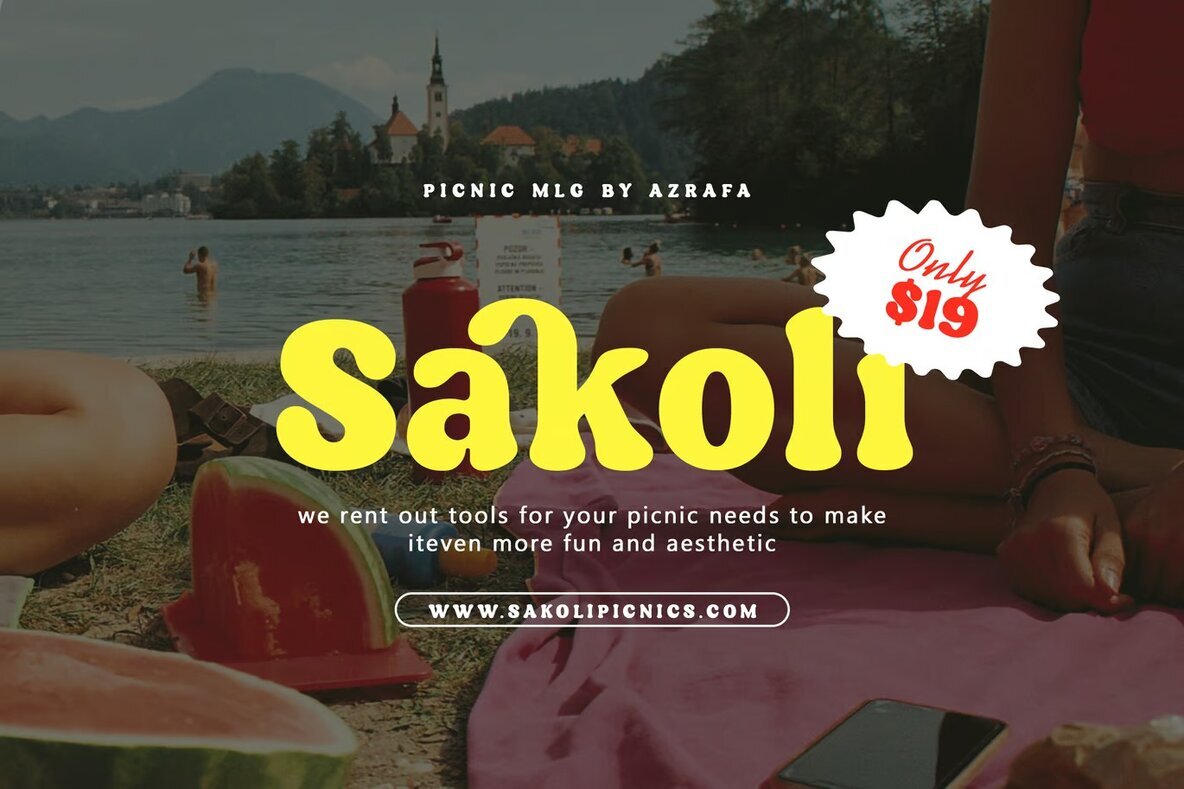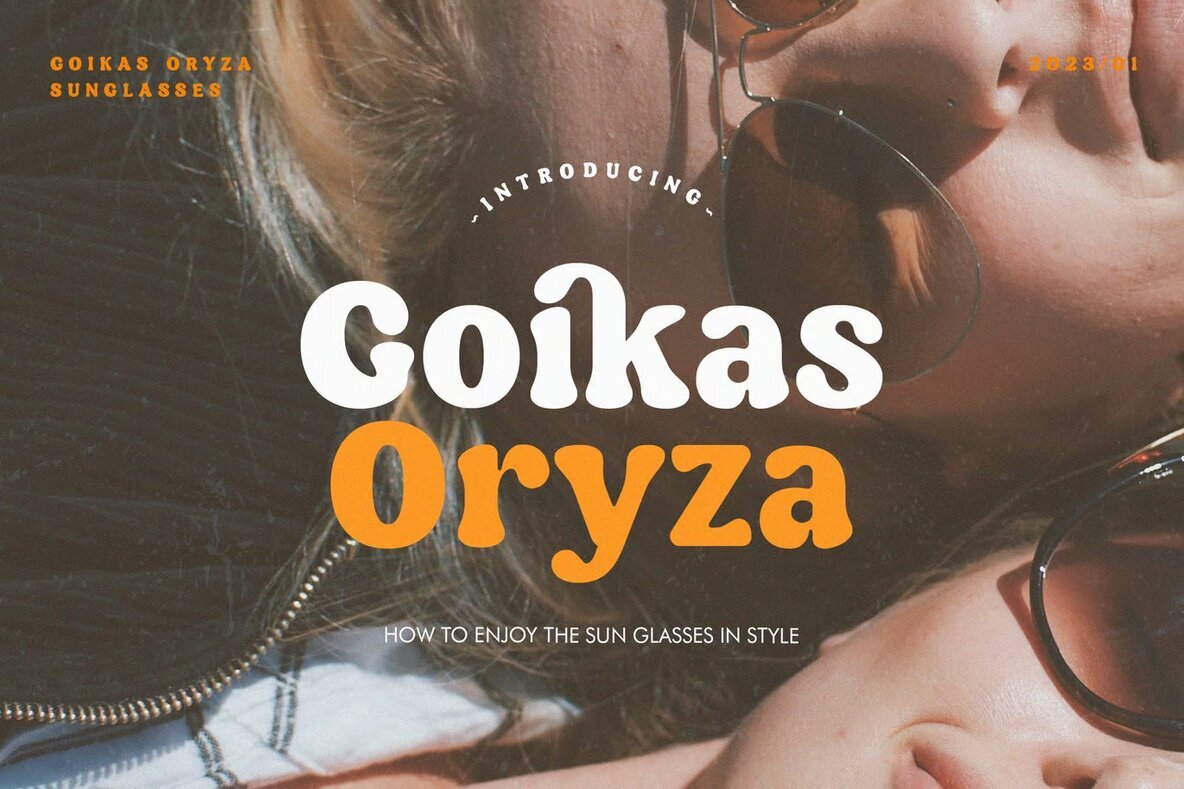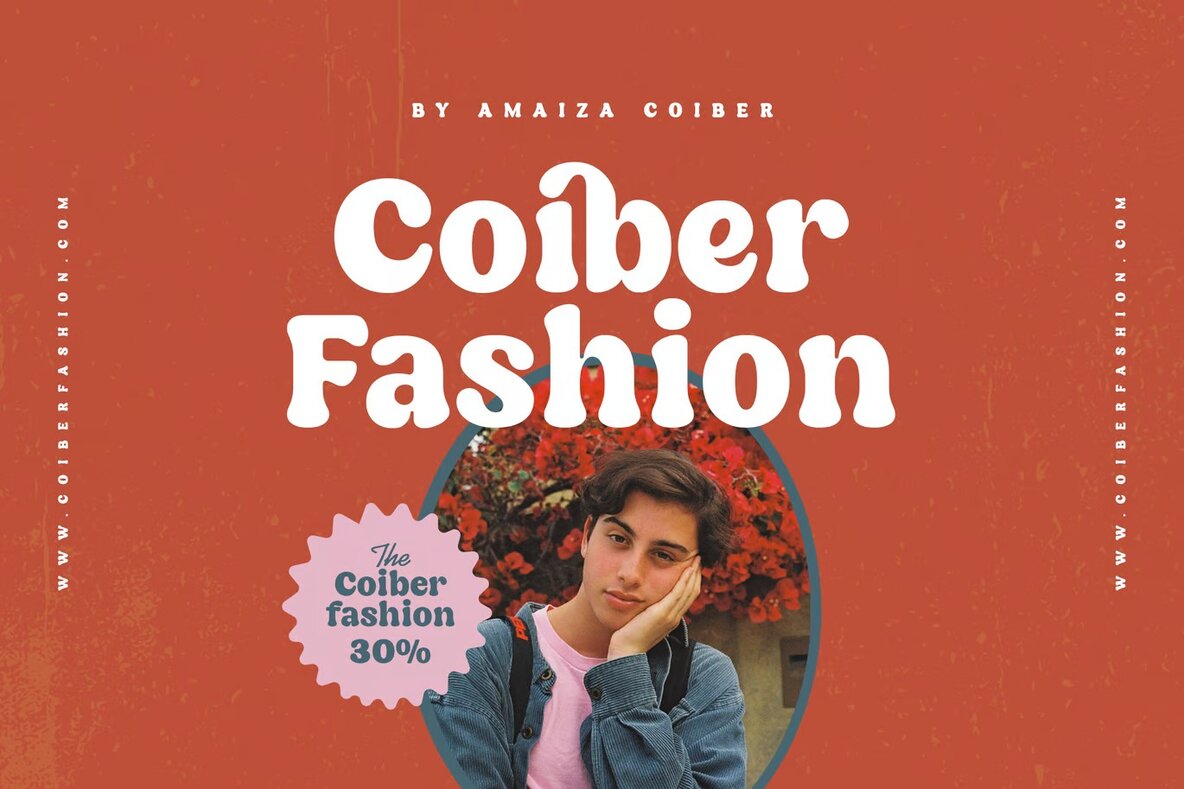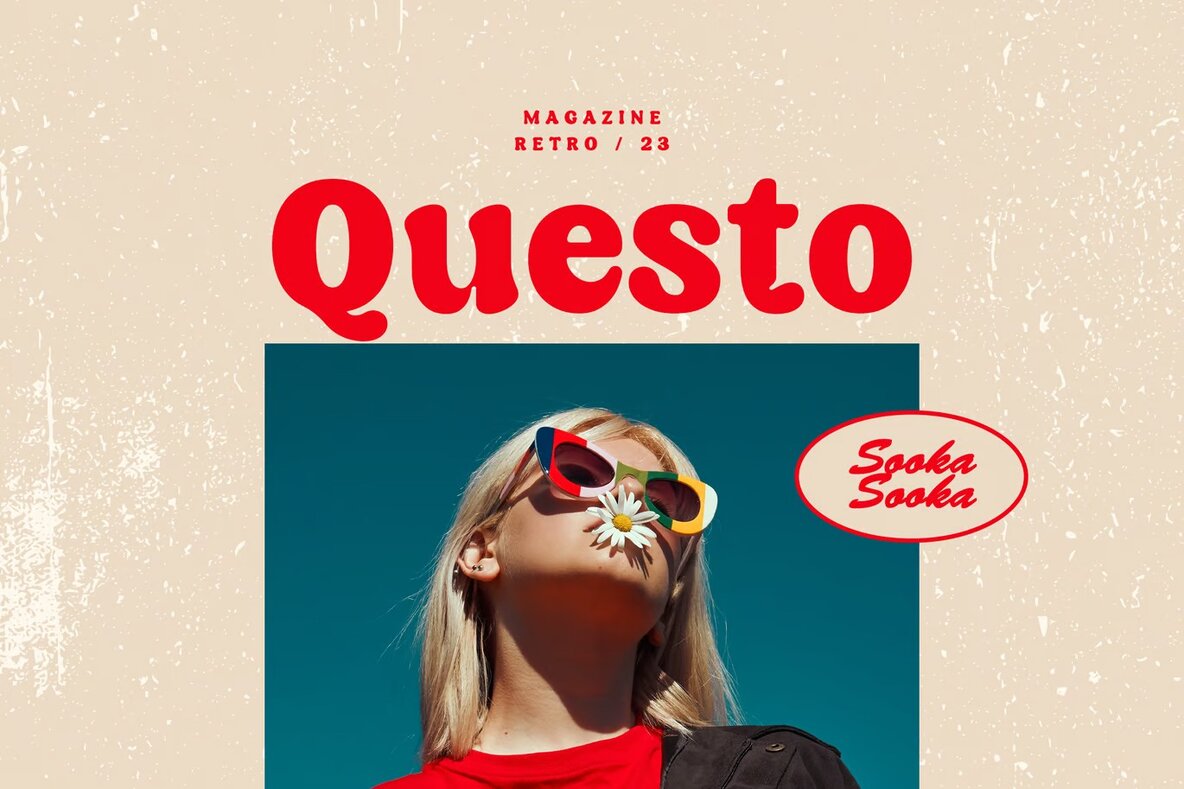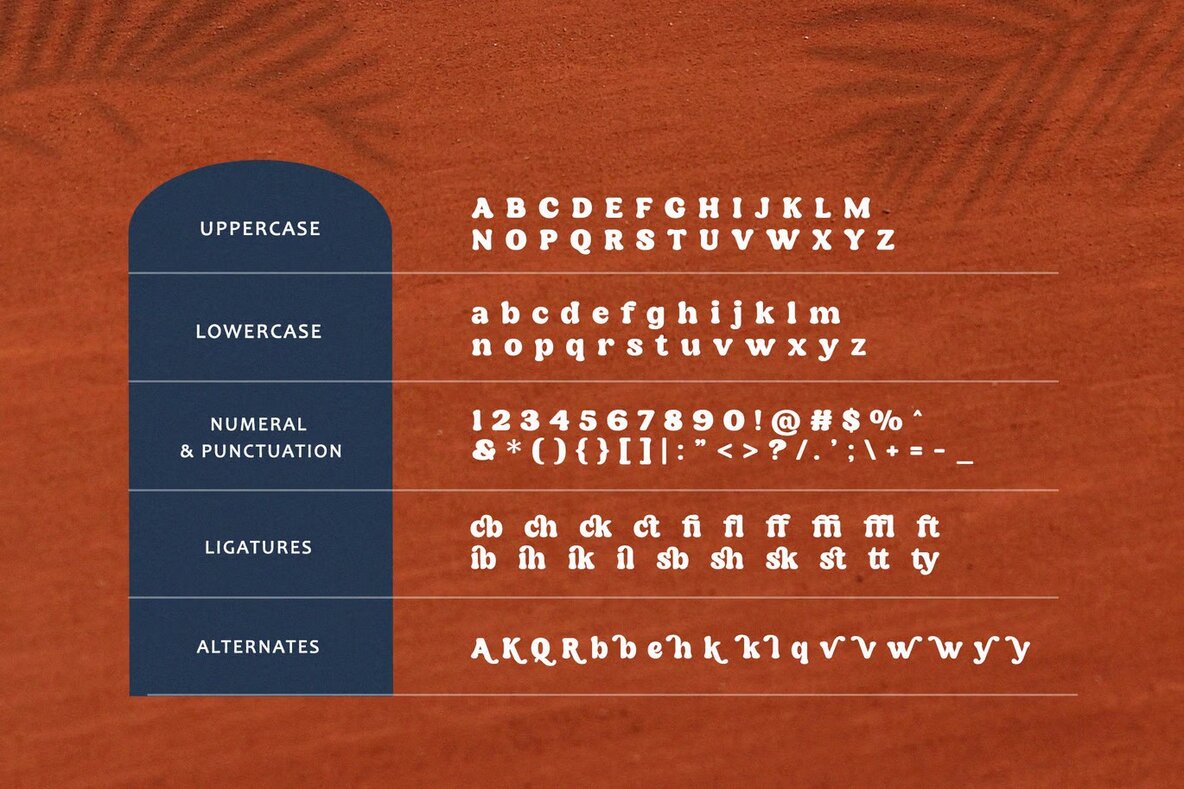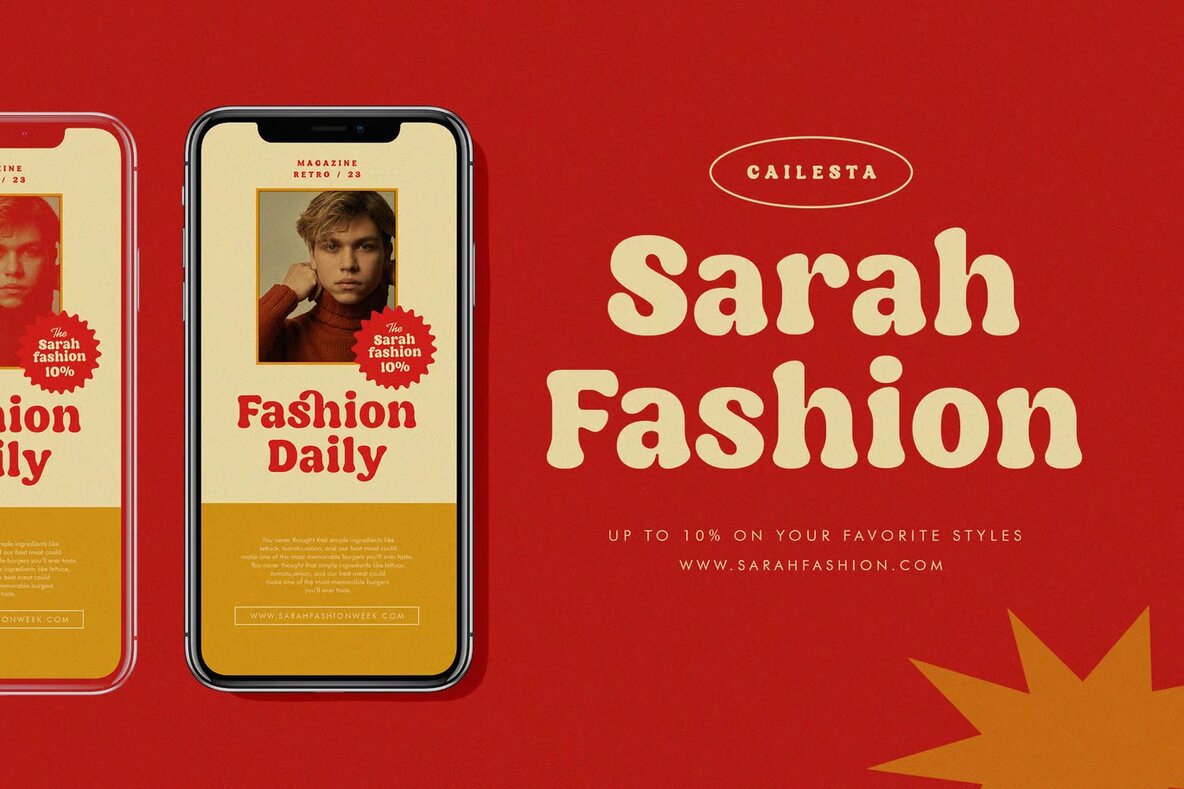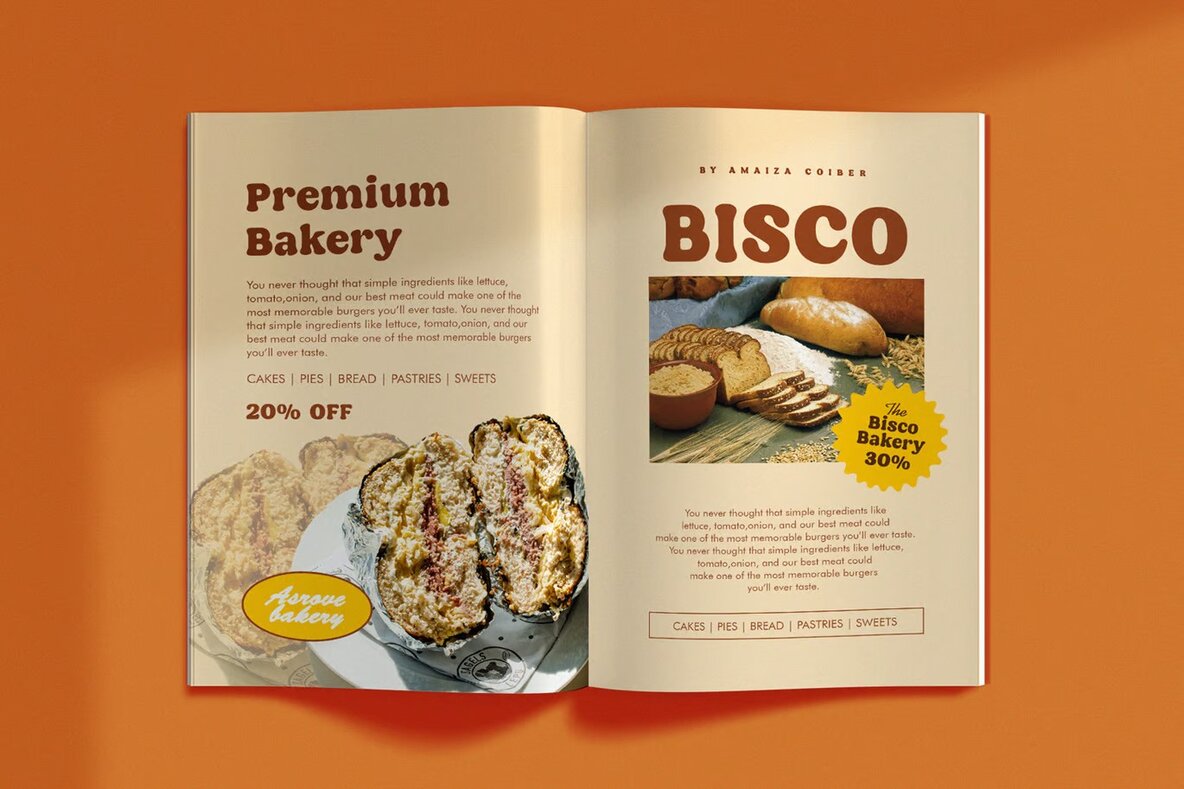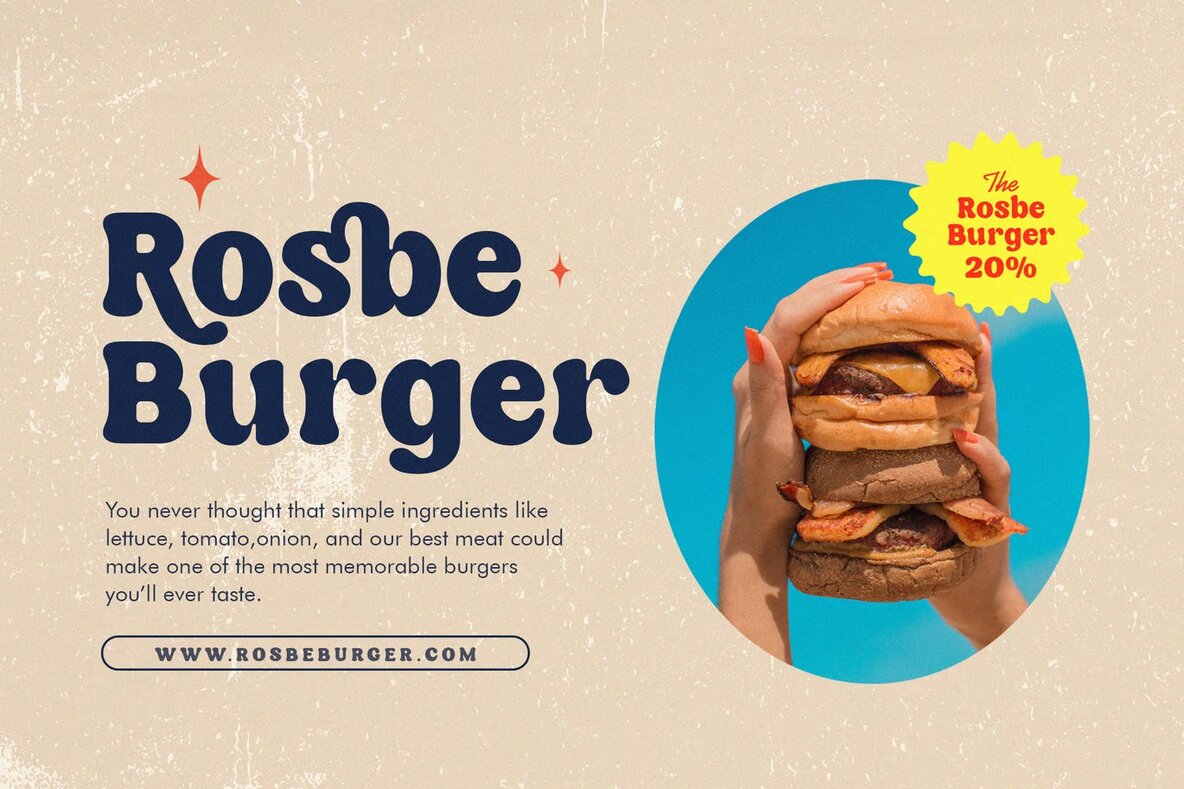
Cailesta Font
Cailesta Regular
Cailesta is a classic retro display serif font with a chubby, bold design, perfect for any project that demands a vintage flair. It offers a variety of alternates and ligatures, allowing for versatile typography combinations. Ideal for logos, branding, modern advertising designs, and vintage-themed projects, Cailesta perfectly complements adventure and mountain hiking brands, hardcore music promotions, and animation or movie titles.
Additionally, this font works well for retro summer posters, book and novel covers, editorial designs, websites, blogs, and card designs. Whether you're working on a modern or retro project, Cailesta's unique style and customizable features make it a versatile choice for all your typography needs.